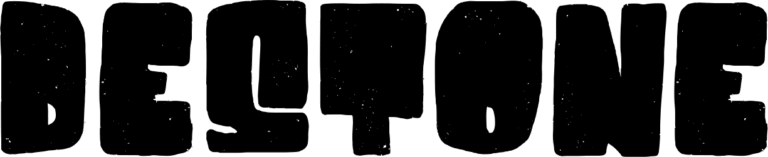
Alpenkreuzer Font
Designed byTup Wanders
For the signs you want to catch the eyes of any passerby, for a poster that’s supposed to retain a retro quality, or maybe a book cover you’ve been working on for which you need an expressive modern block font, Alpenkreuzer is the answer to all such purposes and more.
This cool wide font and its strong square all-caps have no problem whatsoever when it comes to conveying a feeling of trust and distinction loud and clear. Enjoy then!
A somewhat awkward and clumsy homemade font I found on a sign that a local caravan salesman had made. But I liked it, and added to it to make this font. Perfect for anything big and cheap.